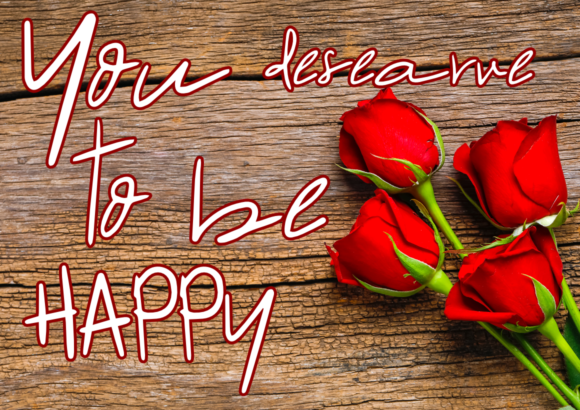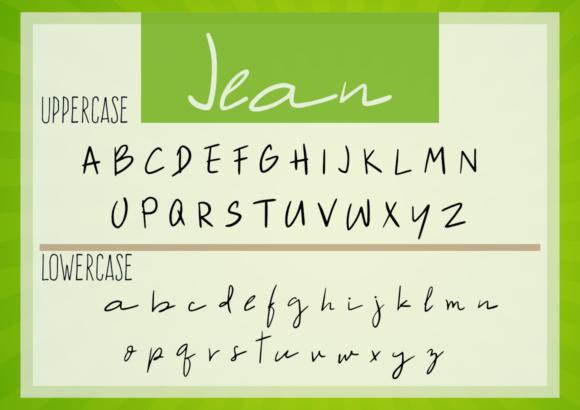
Introduction to Jean Font
Do you remember the moment when you stumbled upon the perfect font for your design project? The one that made your creative vision come to life and left you feeling like you’re speaking directly to your audience? For many designers, that moment is like finding a needle in a haystack, but with Jean Font, you might just get lucky.
As a designer, you’re always on the lookout for that special something that sets your work apart from the rest. That’s where Jean Font comes in – a cute and casual handwritten font that exudes an incredibly friendly feel. Its relaxed style makes it perfect for a wide range of creative projects, from gorgeous wedding invitations to beautiful stationery art, eye-catching social media posts, and cute greeting cards.
Whether you’re a seasoned designer or just starting out, Jean Font is a valuable resource that’s sure to elevate your designs. With its high-quality design and transparent background, you can use it to create stunning visuals that grab attention and leave a lasting impression. And the best part? It’s available for free download, making it an accessible and affordable addition to your design arsenal.
Key Features of Jean Font
- High-quality, unique font design ideal for creative projects
- Supports a wide range of languages, making it a versatile design choice
- Designed to provide a clean and elegant look for various design applications
Honest Review: Jean Font
I recently had the chance to dive into Jean Font, a free design resource that promises high-quality fonts for creative projects. After spending some time exploring this resource, I’m excited to share my honest thoughts.
- Wide Variety**: Jean Font boasts an impressive collection of fonts, catering to different design styles and preferences.
- High-Quality Fonts**: The fonts I downloaded were crisp, clear, and suitable for both digital and print media.
- Transparent Background**: The transparent background feature allows for seamless integration with various design elements.
- Limited Customization**: While the fonts are high-quality, some users might find the customization options limited.
Overall, I’m impressed with Jean Font’s collection and the quality of their fonts. It’s an excellent resource for designers seeking high-quality fonts for their creative projects. While there are some limitations, the free download option and transparent background feature make it a valuable addition to any design library.
Jean Font is a versatile and high-quality design resource ideal for creative projects. Its transparent background makes it easy to integrate into various designs.
Tips for Getting the Most Out of Jean Font
To get the most out of Jean Font, experiment with different font sizes, colors, and combinations to find the perfect look for your design. You can also use it as a starting point and modify it to create a unique design element.
Jean Font is ideal for various design projects, including logos, brochures, and social media graphics. Its high-quality design and transparent background make it a versatile resource for creative professionals and hobbyists alike. You can download Jean Font for free and start using it in your next project.